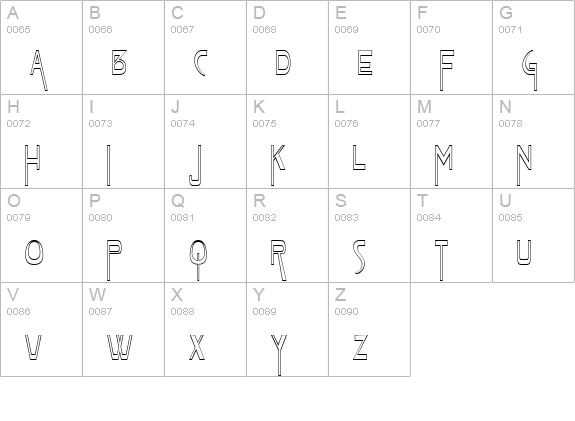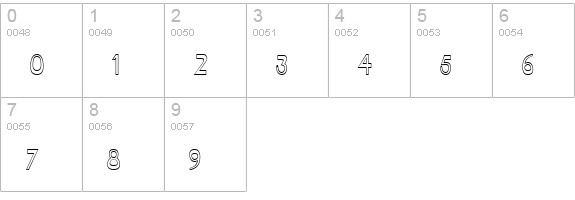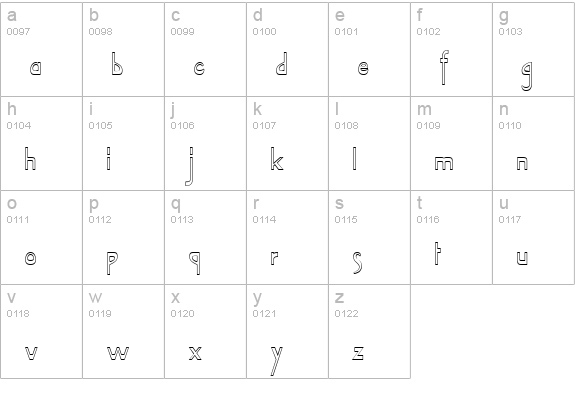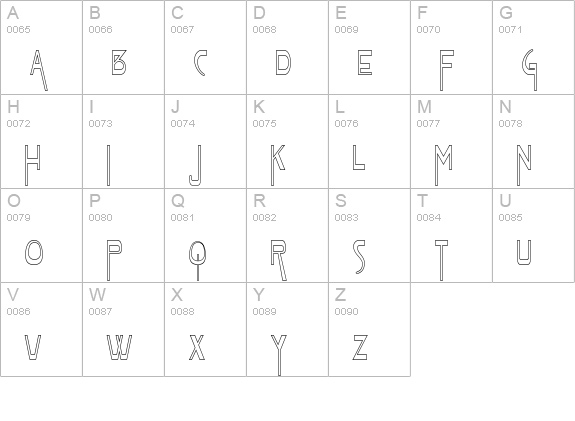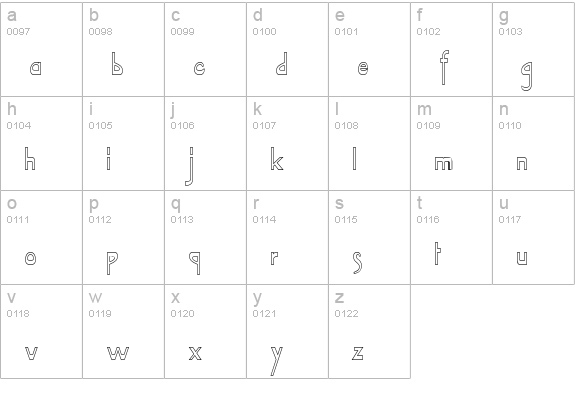
TabletHollowCondensed Normal Font Details
TabletHollowCondensed Normal is the standard, neutral variant in the TabletHollowCondensed typeface family \xE2\x80\x94 well suited to general body text, paragraphs, and standard typographic work.
TabletHollowCondensed Normal font is a sleek and stylish typeface that is perfect for adding a modern touch to any design project. With its clean lines and condensed letterforms, this font exudes elegance and sophistication. The hollow design adds an extra layer of uniqueness, making it stand out from the crowd. This font is not only visually appealing but also highly versatile. It can be used in a variety of contexts, from logo designs and branding materials to headlines and website content. Its legibility and readability make it a great choice for both print and digital applications. One of the best things about TabletHollowCondensed Normal font is that it is available for free download at FontsMarket.com. This means that you can easily access and use this font in your projects without any cost. Whether you're a professional designer or a hobbyist, having access to high-quality fonts like this one can greatly enhance your creative work. So, why wait? Head over to FontsMarket.com and get your hands on the TabletHollowCondensed Normal font today. Start creating stunning designs that will captivate your audience and leave a lasting impression.